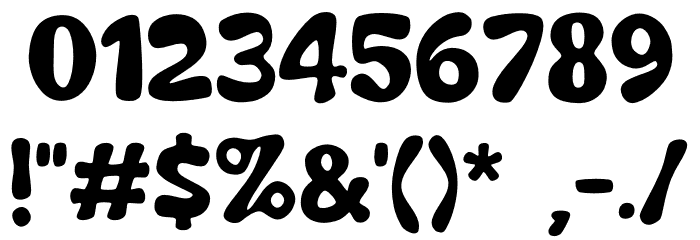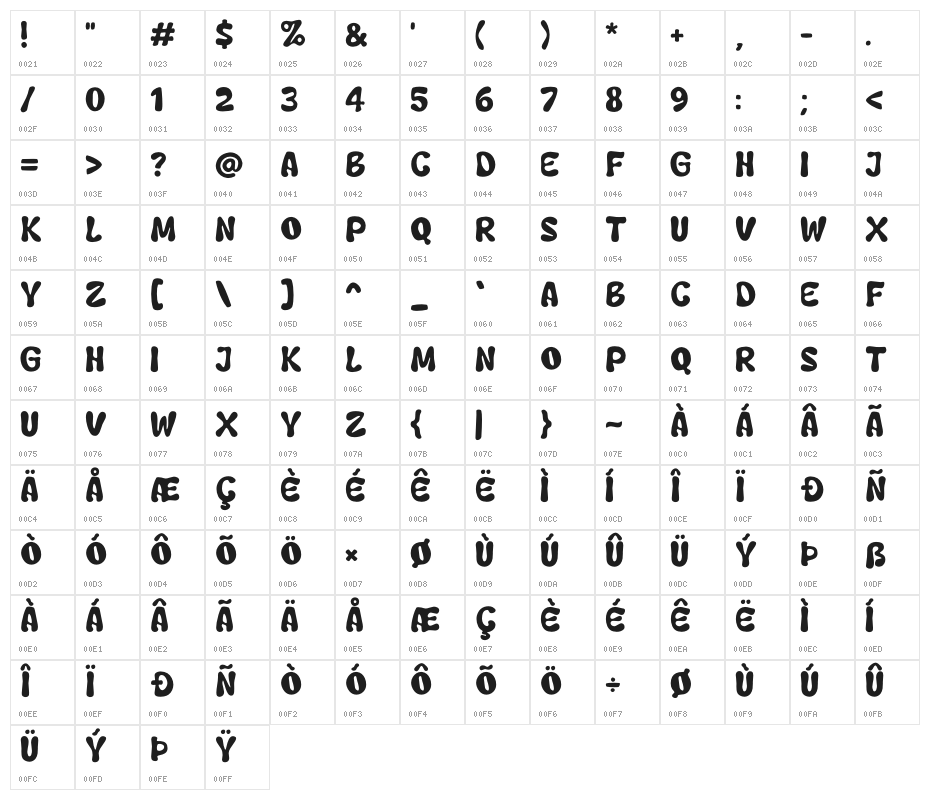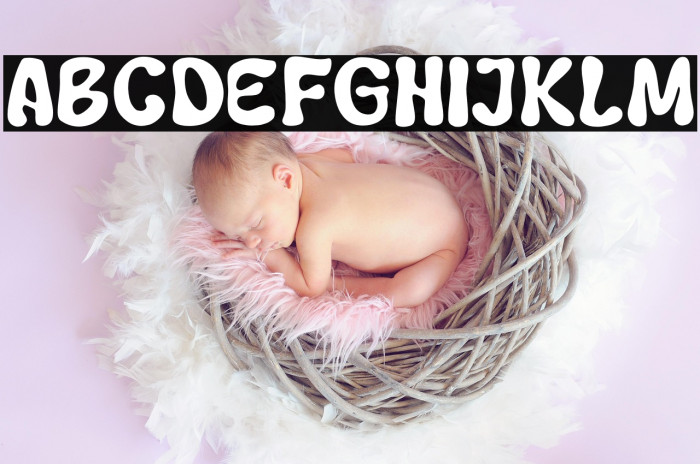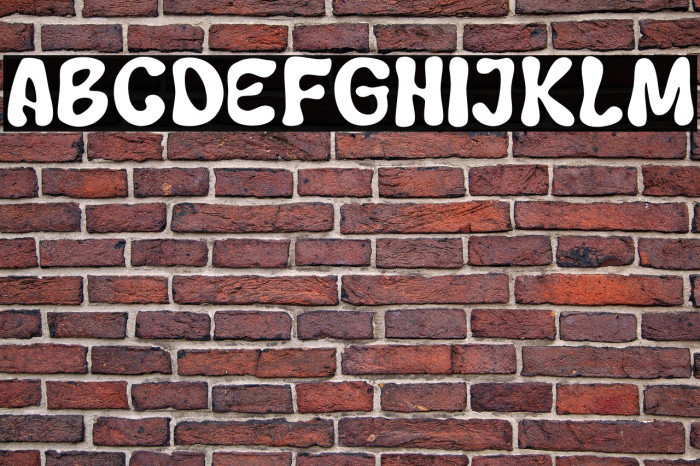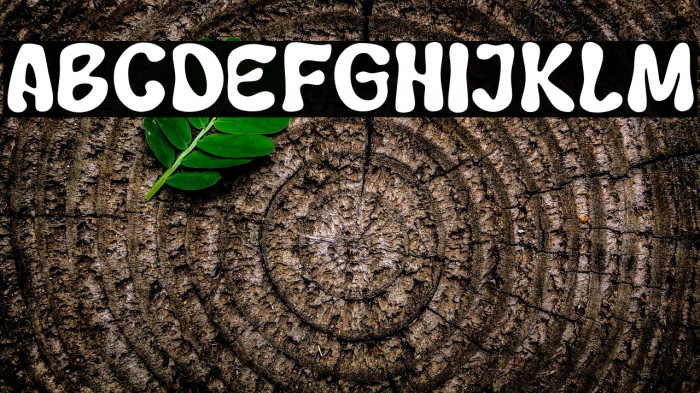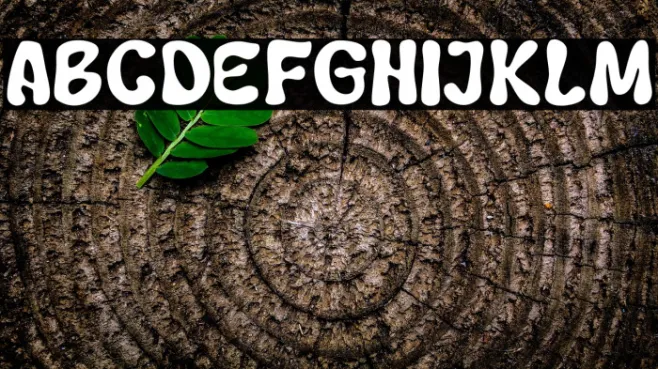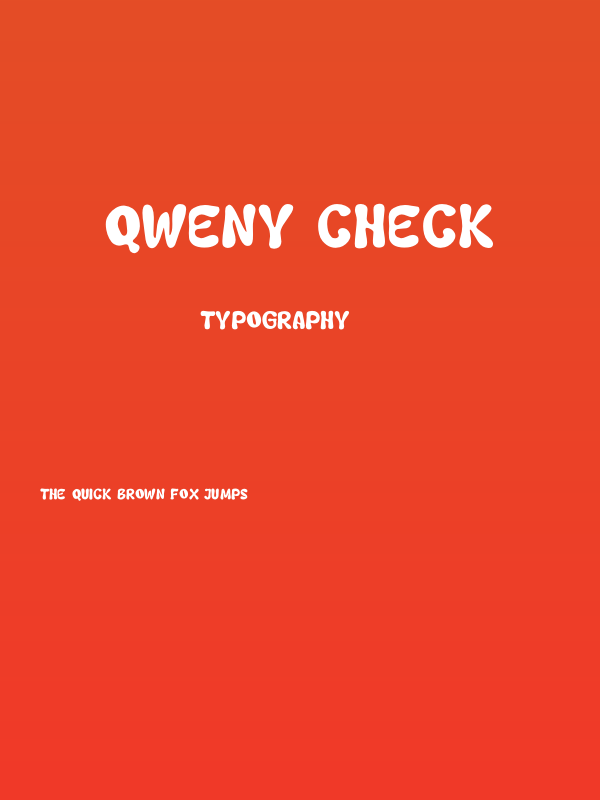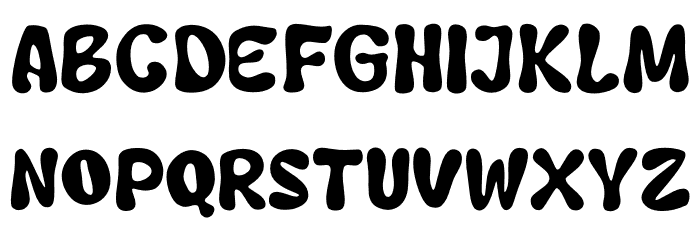
Qweny Check Font
Qweny Check Description
This playful and bold font features rounded, bubbly characters that exude a sense of fun and creativity. The letters are thick and have a consistent stroke width, giving them a strong presence on the page. The rounded edges and slightly irregular shapes add a whimsical touch, making it ideal for projects that require a friendly and approachable aesthetic. The numbers and special characters maintain the same playful style, ensuring a cohesive look across all text elements.